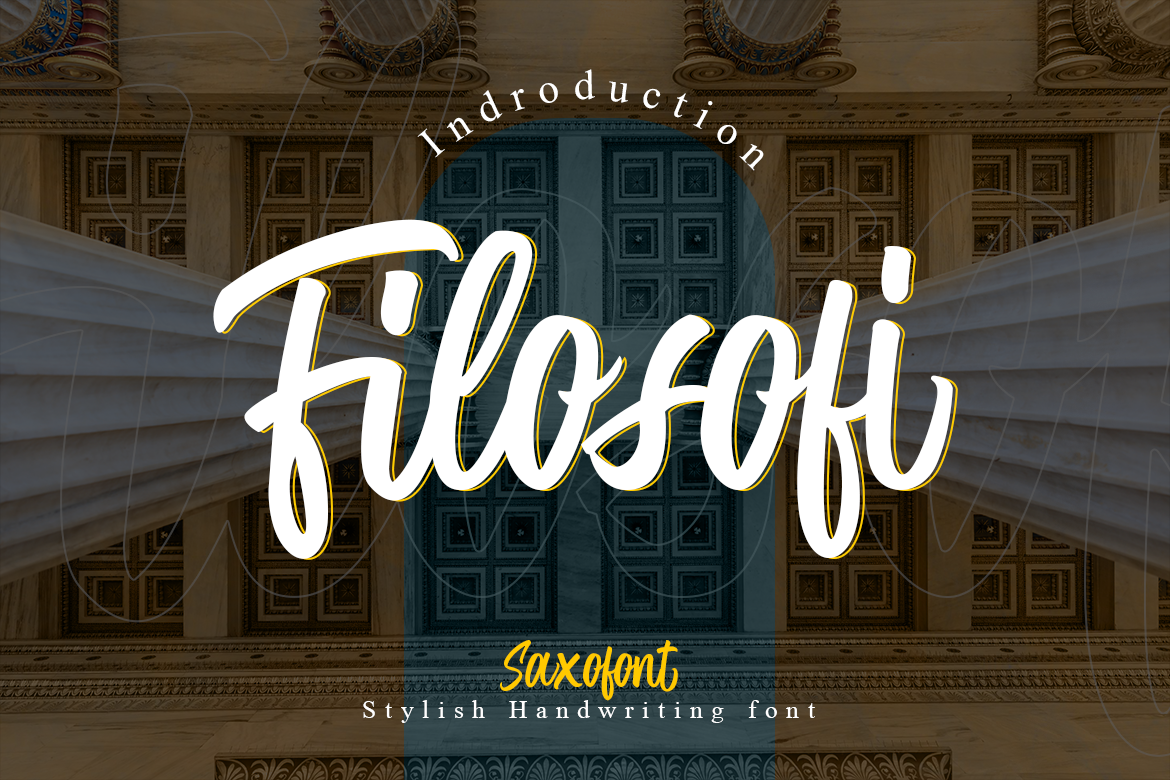
Filosofi - Stylish Handwriting Font
Filosofi is an elegant script font with a contemporary atmosphere and impeccable form, inspired by timeless classic calligraphy. Not too thin and not too thick, balanced and varied, this font was designed to enhance the beauty of your projects. Filosofi is PUA encoded which means you can access all of the glyphs and swashes with ease!